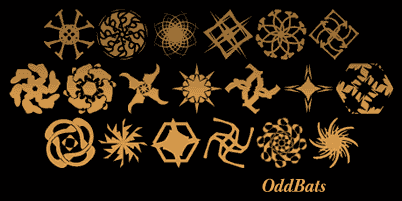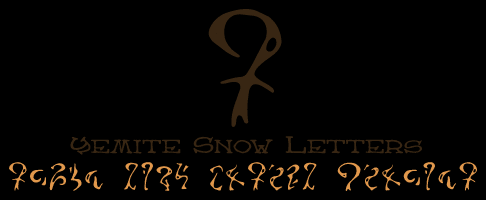
| Arvigo is playfully evil.
Like Hultog and a few of my other fonts, the inspiration
for this one came from my long-running FRP campaign. Arvigo's a decidedly
unpleasant character: a shifty, machiavellian underworld figure lacking
ethics, sympathy and, as it happens, his nose. He'd consider this font
pretty. The folks at White Wolf agreed; they found it sufficiently ooky
to be the "Nosferatu" header font in their Vampire: The
Requiem RPG. Freeware.
Apple Butter - the food, that is - was a childhood favorite of mine. Strawberry-rhubarb preserves, apple butter, and a creamy potato and macaroni soup are my three fondest food-related memories, and all three were the work of Etta Collins, my great-grandmother. Something about the look of this month's font got me thinking of those days. Freeware.
Mexlar is an alien script it took me a year to nail down, and I'm very happy with the final result. This is the writing of the red-shelled, hooting alien prudes I introduced in Points in Space. Handy for Game Masters in need of an alien/fantasy alphabet your players haven't seen before! Goofy freeware.
Vanthian Ragnarok is an oddity I produced mainly as a teasing inside-joke during the days when Encounter Critical was still a hoax. It begins with the same kind of typewriter face used in the game, but then thrashes directly across the middle with a wavering line. I'm not sure why; I just liked the way it looked. A stress-font for the end of this or any other world. Freeware.
Phaeton John is one of the more eccentric of my warmly-hand-drawn family of families, stretching high into the vertical, and dancing unashamedly through a jumble of retro styles. It is, in other words, very Uresia, and designed to complement other Uresia fonts like Apple Butter, Heirany and Atlas of the Magi. Freeware.
Oddbats began with me teaching myself pure-vector doodling to make a single glyph for a sourcebook, and quickly became an avalanche of spinning, carving, and smooshing. I kept going (and kept learning) until I had a set full of ... I guess you'd call them typographer's bullets, but the kind the typographer would shoot himself in the head with, rather than actually use in a sensible layout. Or would he? Would you? Freeware.
Homespun is a less-assuming sibling to Phaeton John, a font more careful in its stride and infused with far less self-confidence. What it loses in style it gains in warmth; this is a font that needs a hug, but knows how to hug back. Two versions, both freeware.
Nicotine Stains is the result of continual exposure Austin's bar-band scene (and the resulting handbills), as well as what amounts to a dirty little thrill from seeing nice, clean type thrashed and mangled. I regard myself as a knight in whatever army opposes the symmetrical and regular things in the world, a champion of the rumpled, the worn, the comfortably lived-in and casually discarded. Rock on. Freeware.
Yemite Snow Letters are magical glyphs from death-haunted Yem, that dark and frosty island at the northernmost edge of civilized Uresia. Don't eat the yellow snow? Indeed, and if you're very wise, you'll keep line of sight to it blocked, as well. Freeware.
Dragon Harbour speaks for itself. Alas, it speaks mainly of drunken fantasy cartographers hitting their noggins painfully on trestle tables and giggling into the sheperd's pie. Freeware.
Lunatic is my earlier (stiffer, caffeine-wracked) handwriting font. It's perfect for corresponding with homicidal maniacs, disturbed Cthulhu cultists, and similar friendlies. According to correspondence from users, earlier versions of Lunatic have been employed in projects ranging from RPG handouts (the handwriting of a child werewolf) to a 10-page final essay for a Psychology class! I use it for map labels in Points in Space!
Cock Boat "You can name it anything you like," I said. Jhada Rogue Addams, my sister-in-spirit from back east in Virginia, was visiting Sandra and I in Texas and so, naturally, I had her "working in the font mines." Apparently, the phrase "Here comes the cock boat!" was used in an off-color Dilbert parody online somewhere, and Rogue had found the term charming. Share it with your family; I'll be sharing it with mine. Freeware.
Heirany is, in theory, a constantly-growing family of warmly-hand-drawns based on the same master drawing, an obvious complement to other fonts you can find here. In practice, it's a very, very slowly growing family. Currently, there are two styles (a faint and extra-bold version), made a couple of years apart! More soon. I hope. Freeware.
Skuntch I've played a bit with the ever-popular "stressed" approach to making a font, where you take a traditional typeface of some kind and make it look like it's been printed, scratched, faded, bloated, crumpled, discarded, abused and so on . . . and I've done a lot of hand-drawn, playful fonts, too. When I sat down to draw Skuntch, I was doing the latter in the mood for the former, so I got messy with a calligraphy marker! Fun freeware.